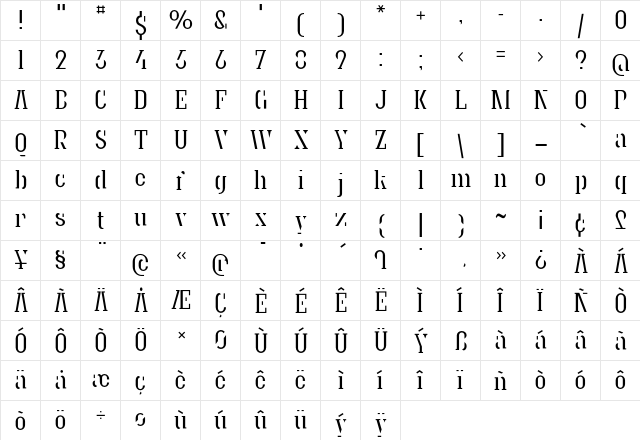
Granite SemiStencilLight
Design Context for Granite Typeface
Granite has the rough pragmatism of spray-painted stencil signage, adding a raw, street-level authenticity to designs. Its slender proportions lend an understated elegance to any composition.
A strong choice for packaging that needs edge, warehouse aesthetics, and rough-and-ready visual identities.
Pro Tip: Use Granite at large sizes on packaging, posters, or apparel where the stencil cutaways read clearly. Avoid small sizes where those gaps become visual noise.